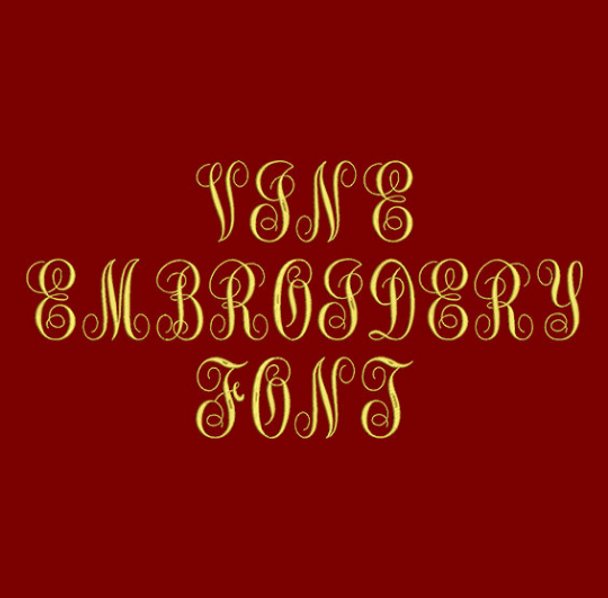
Machine Embroidery Font - Vine Font
Title: Vine Machine Embroidery Font
This Vine font is perfect for personalizing clothes, bags, towels and linens!
This beautiful font would look amazing as a Monogram on Totes, School bags and purses!